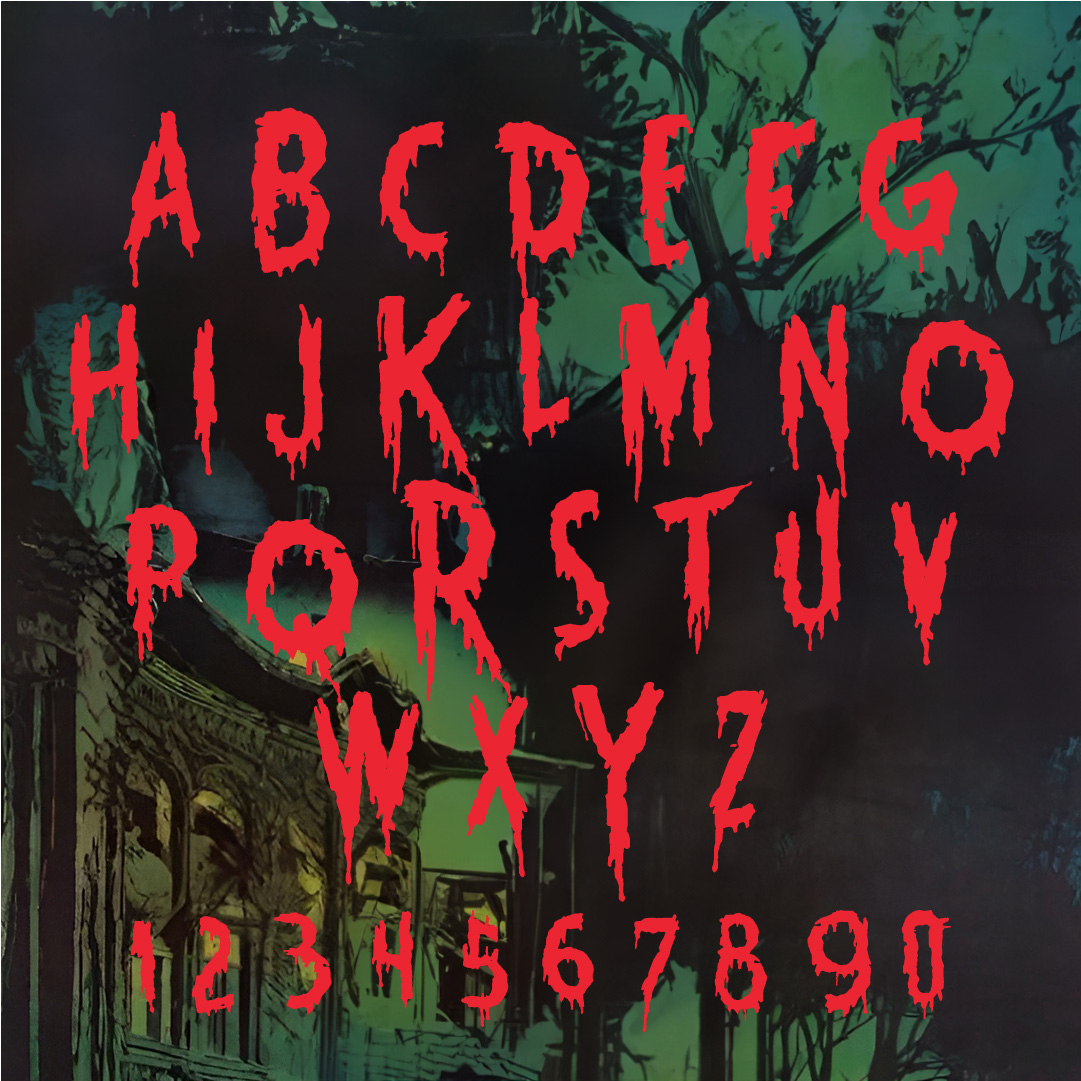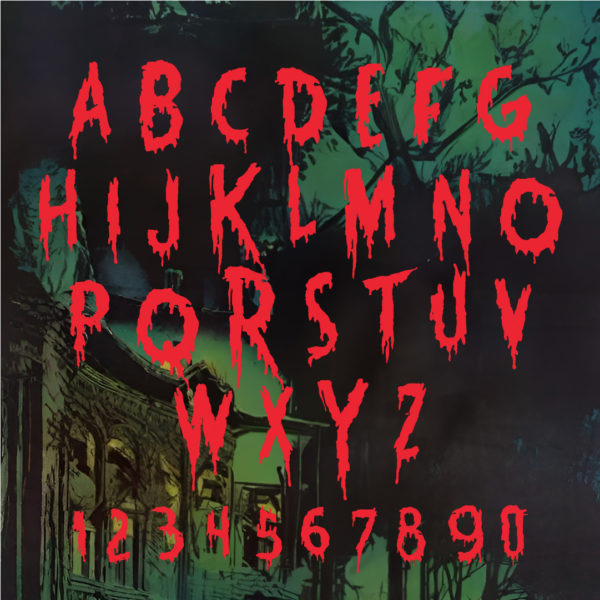
Haunt Cuts
Haunt Cuts: Spine-chilling, dripping font for extraordinary designs.
Haunt Cuts, the scratchy, pulp influenced typeface that will take your projects from ordinary to hauntingly extraordinary. This bone-chilling font is perfect for creating captivating posters, eerie book covers, and sinister signage. Haunt Cuts will transport viewers into a realm of darkness and mystery.
With its scratchy edges, Haunt Cuts adds an unmistakable touch of horror to any design. Each meticulously crafted character embodies the essence of nostalgia – think vintage horror movie posters or classic pulp novels. The jagged cuts exude an air of menace while the dripping details evoke images of blood-curdling terror.
Beware! Haunt Cuts isn’t just another run-of-the-mill creepy font; it’s an invitation into a shadowy underworld where nightmares come alive through typography.